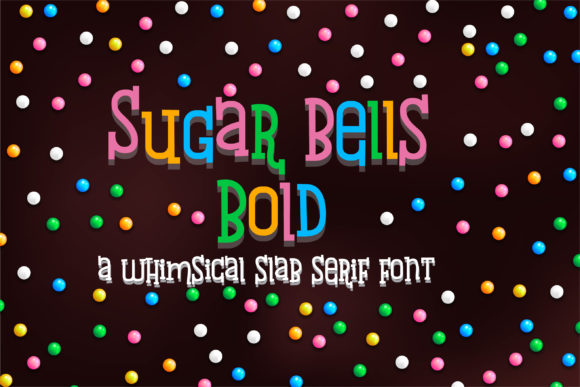
Introducing the ZP Sugar Bells Font, a serif font like no other that will inject a touch of classic charm and a generous helping of individuality into your design creations. Inspired by timeless typography, this font is a symphony of elegance and creativity.
Immerse yourself in the world of ZP Sugar Bells and discover a font that will transform your design projects into captivating masterpieces. From alluring book titles that draw readers in to sophisticated wedding invitations that exude romance, this font was born to make a statement.
Step into a realm where branding becomes art, where headings command attention, and where logos leave a lasting impression. ZP Sugar Bells is not just a font; it's a gateway to a world of design possibilities.
With ZP Sugar Bells, you'll never settle for ordinary again. Let your creativity soar as you craft designs that resonate with your audience, leaving them spellbound and yearning for more. Join the design revolution today and embrace the ZP Sugar Bells Font, your gateway to design brilliance.